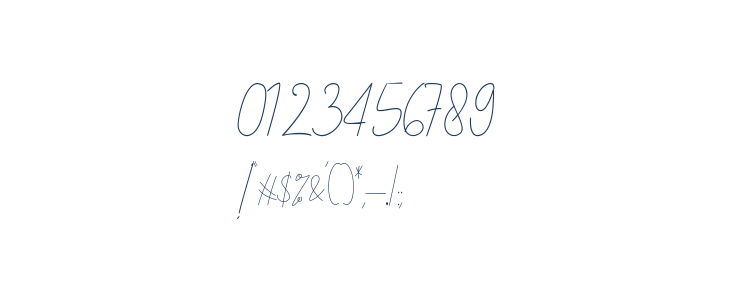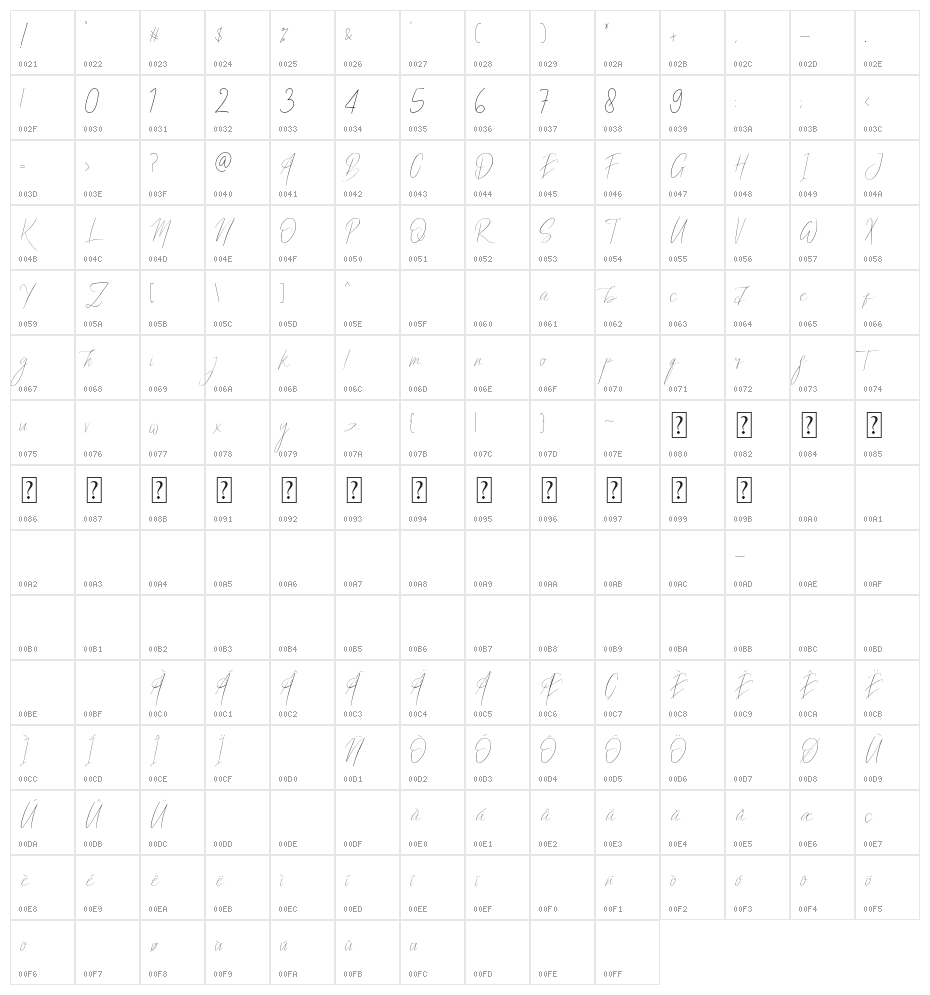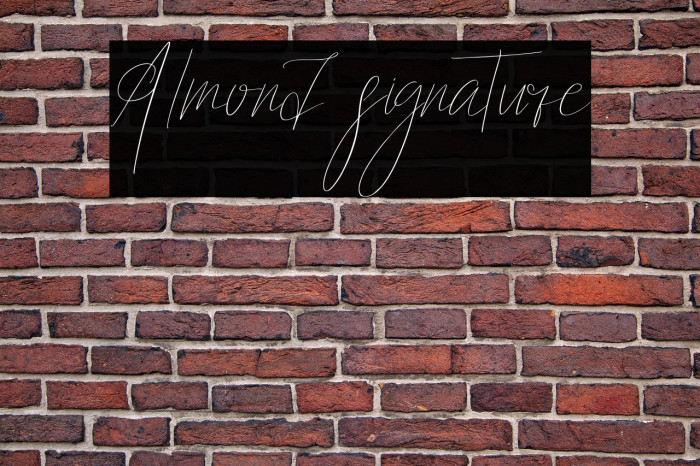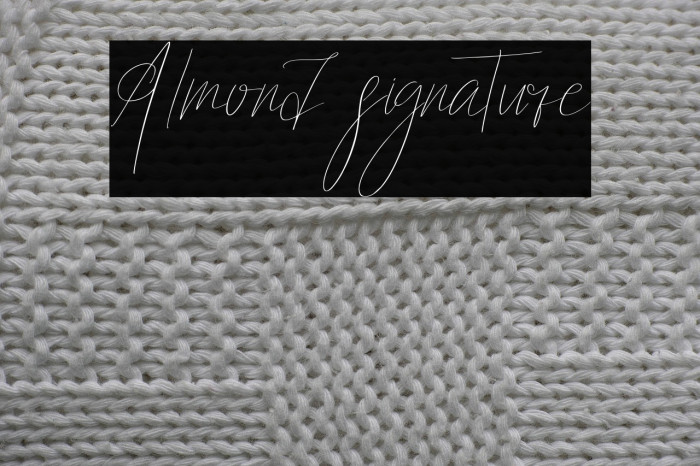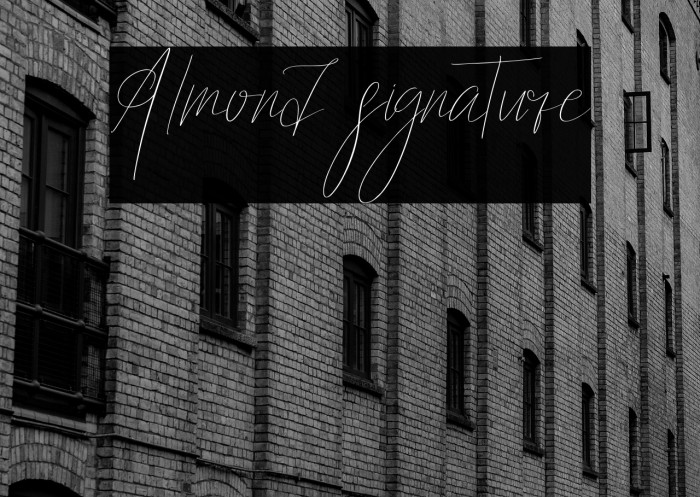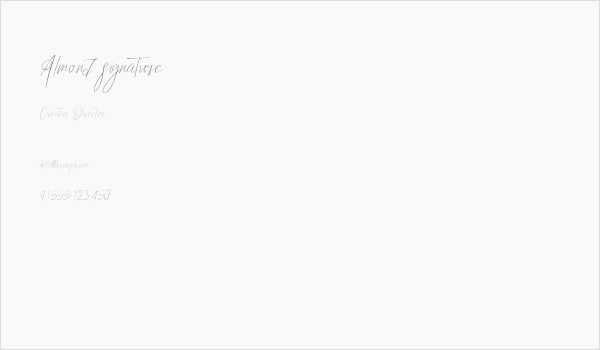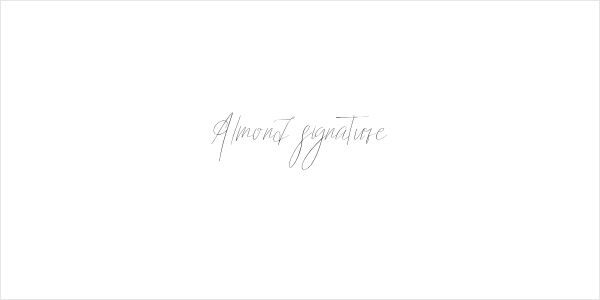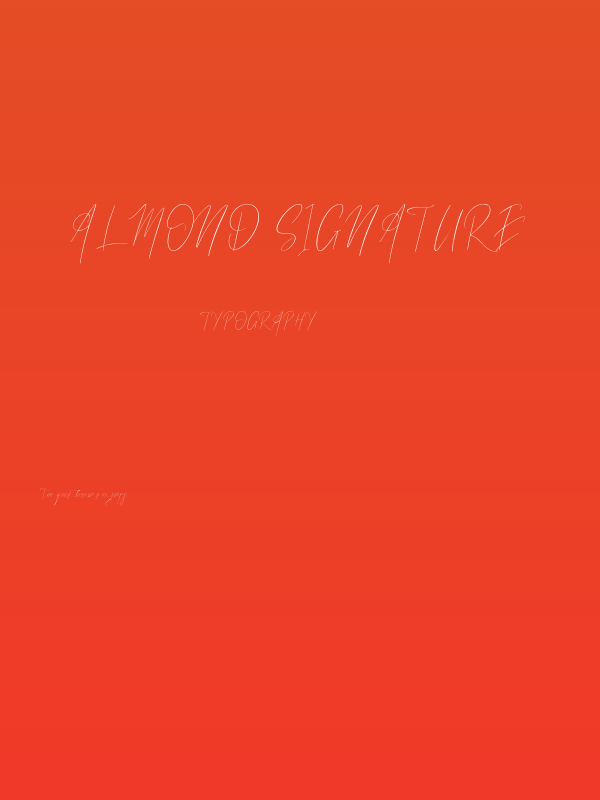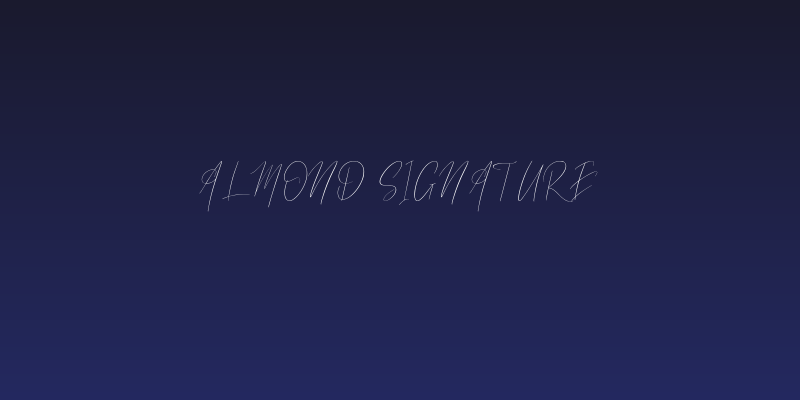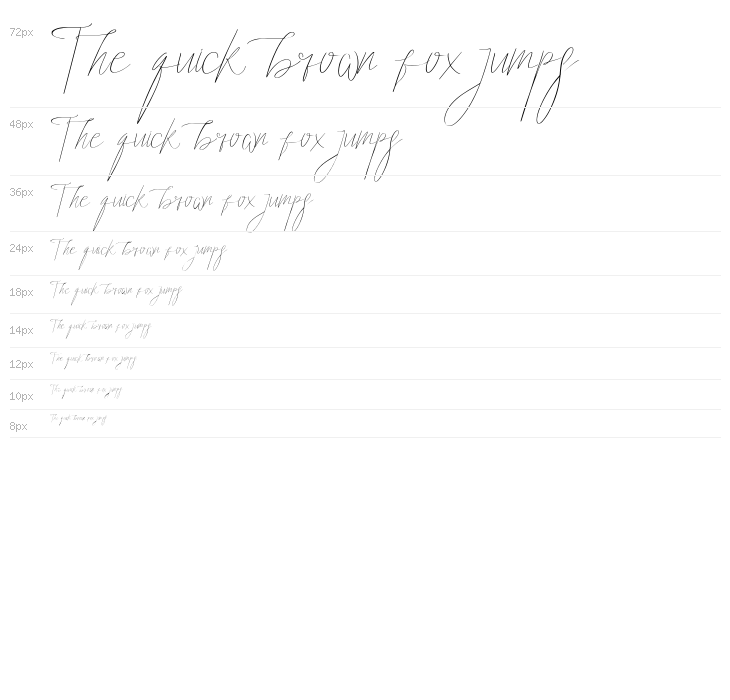
Almond signature Font
Almond signature Description
This font exudes elegance and sophistication with its flowing, cursive style. The characters are crafted with a delicate touch, featuring thin, graceful lines that mimic the fluidity of a handwritten signature. The uppercase letters are tall and slender, while the lowercase letters maintain a consistent flow, enhancing the overall aesthetic. Numbers are clear and distinct, complementing the script style. The special characters are thoughtfully designed to match the elegant theme, making this font ideal for projects that require a personal, refined touch.
| Overall Style | Elegant, Handwritten |
| Proposed Projects | Ideal for wedding invitations, personal branding, elegant logos, and stationery design. |